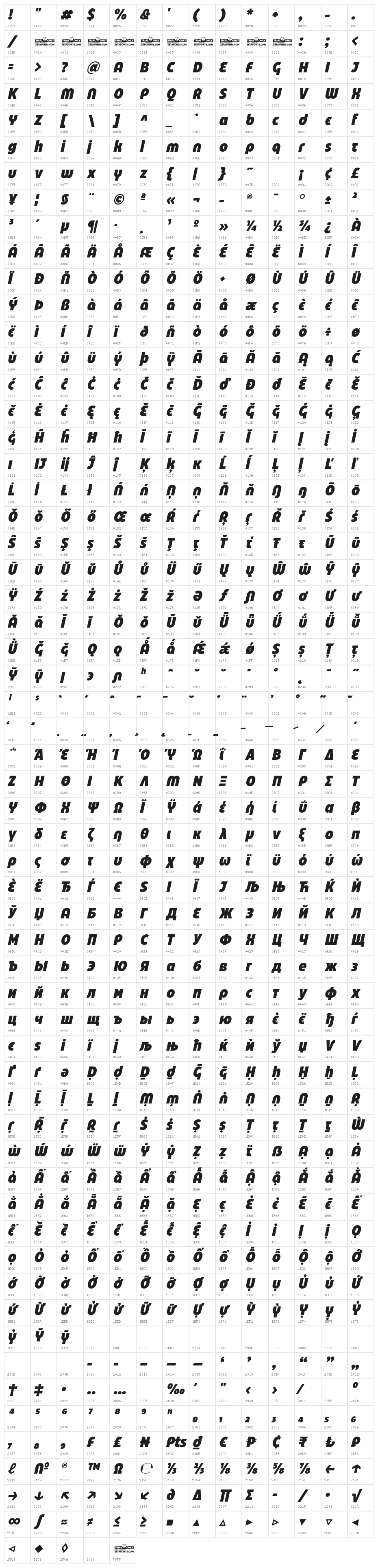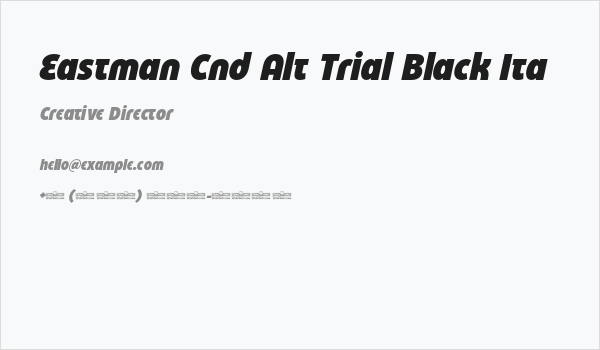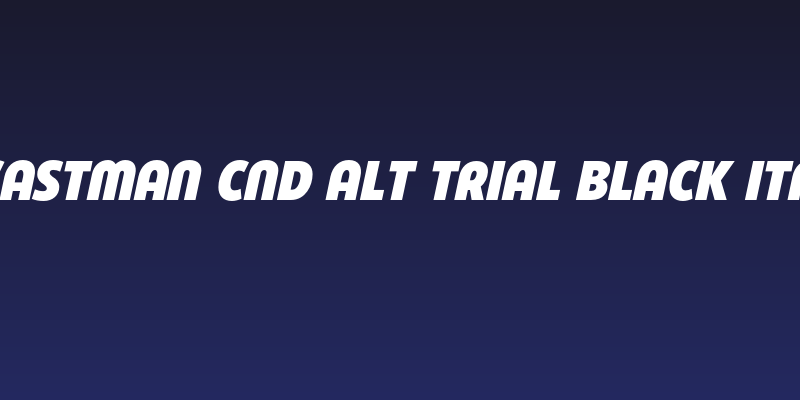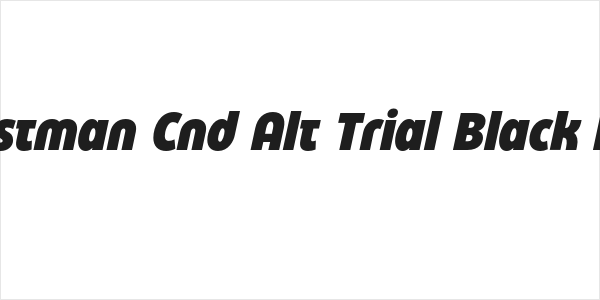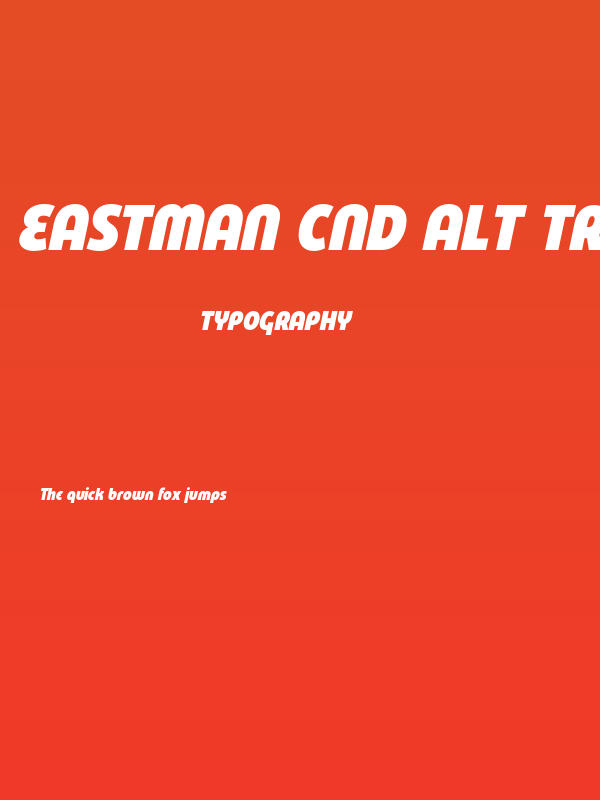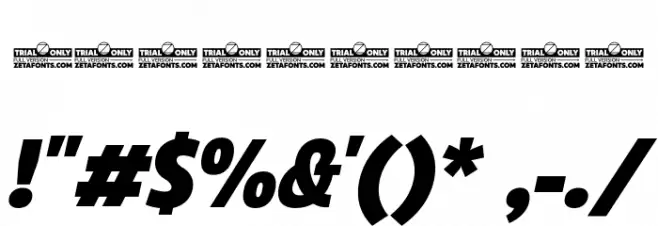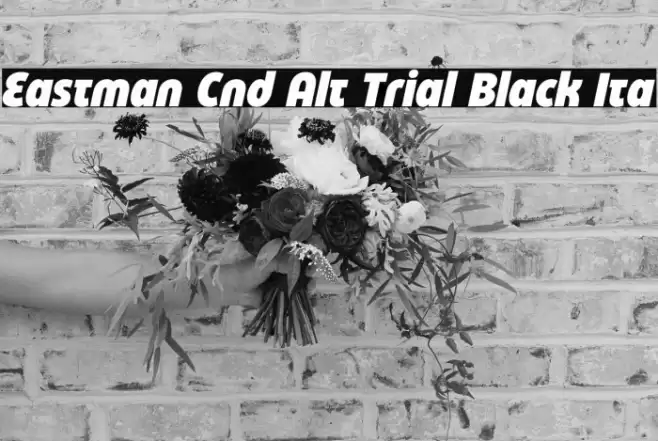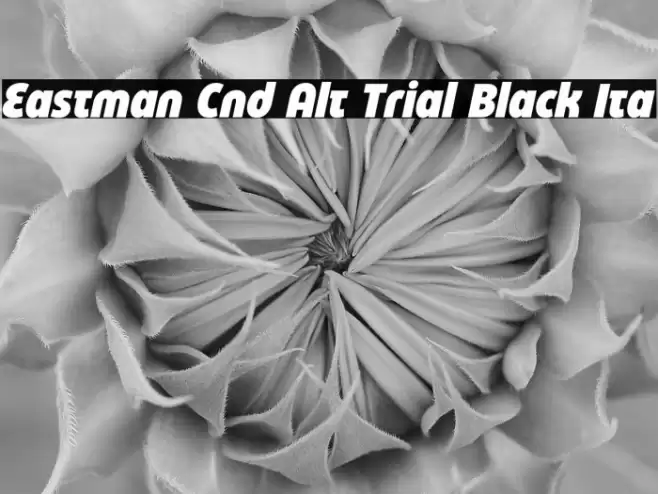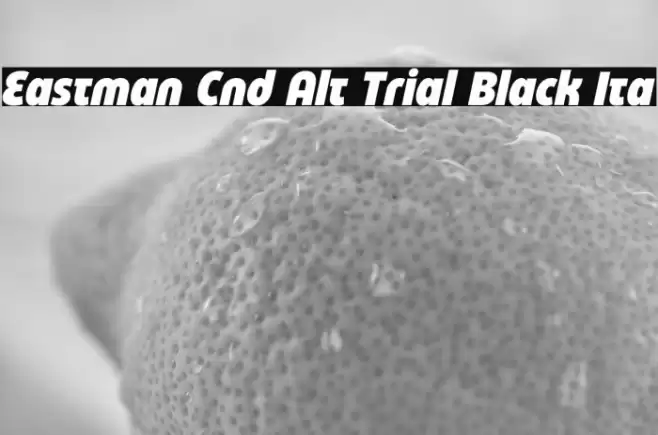
Eastman Cnd Alt Trial Black Ita Font
Eastman Cnd Alt Trial Black Ita Description
This font features a bold and dynamic style with a condensed width, making it ideal for impactful headlines and attention-grabbing designs. The characters are slightly italicized, adding a sense of motion and modernity. The strokes are thick and consistent, providing a strong visual presence. The overall design is clean and geometric, with a slight slant that enhances its contemporary appeal. The font includes a full set of uppercase and lowercase letters, numbers, and a variety of special characters, ensuring versatility for various design needs.